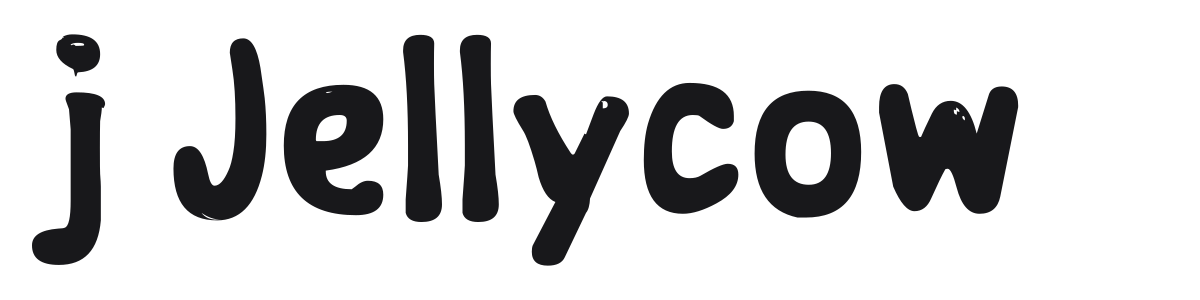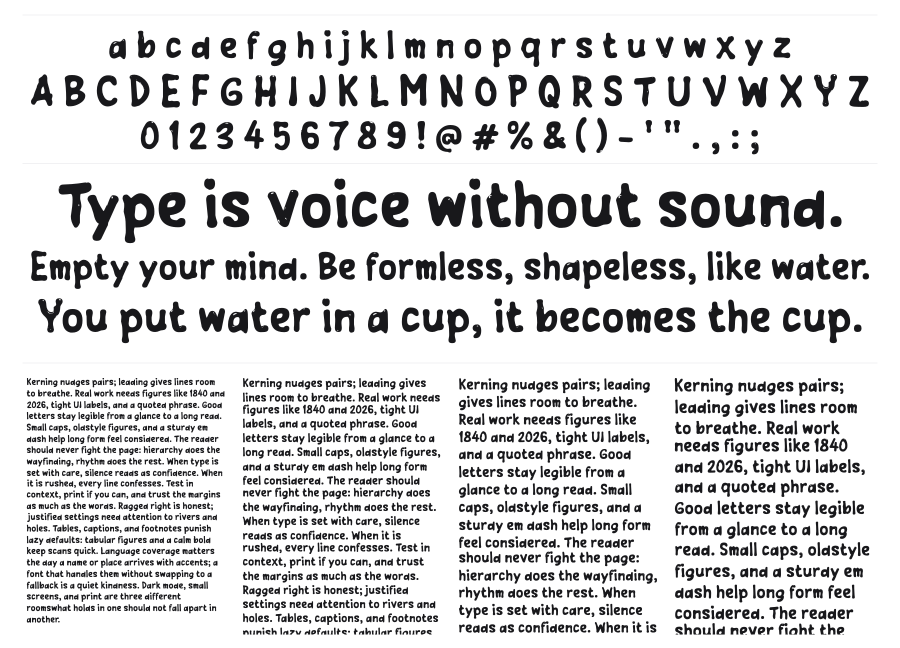
j Jellycow
Jellycow is a bold, rounded display font with an unmistakable gooey, liquid quality to every stroke. The letters pool and bulge at joints and terminals, as if rendered in thick syrup or slime. It brings an instant cartoon energy to food branding, game titles, kids' packaging, and anything that needs to feel a little gross-cute.